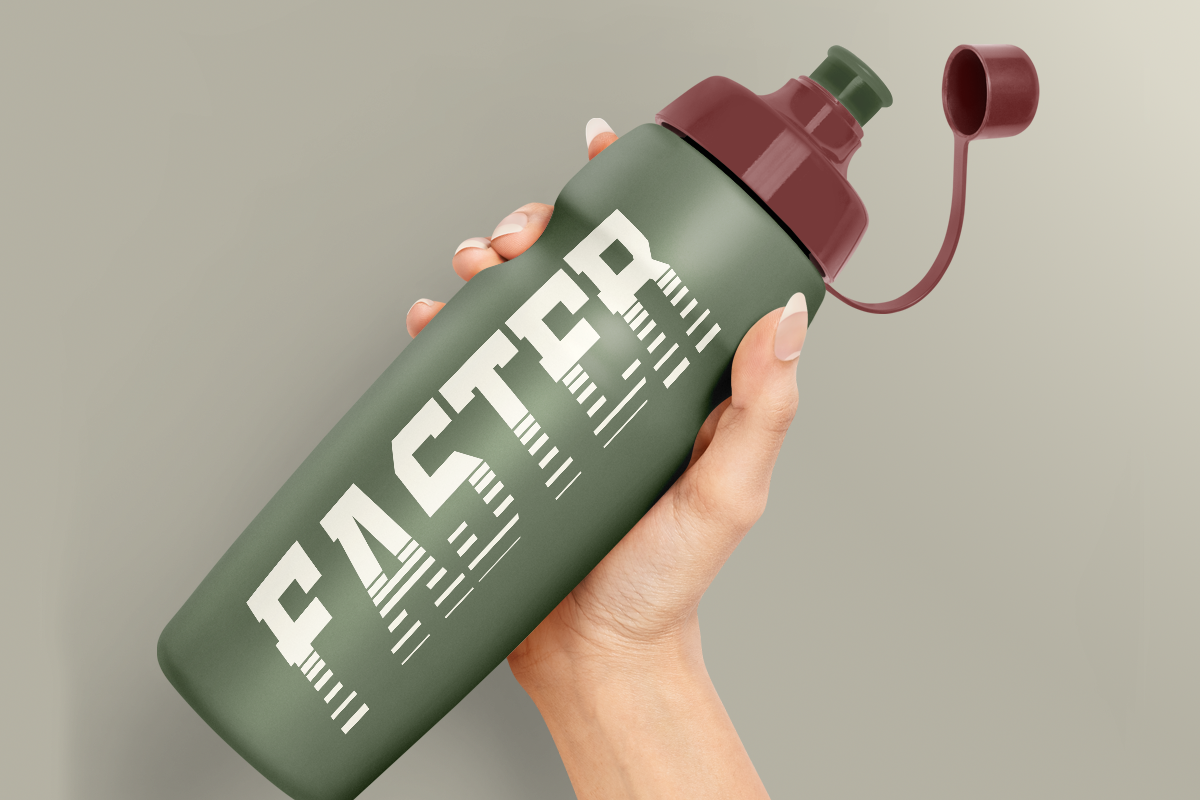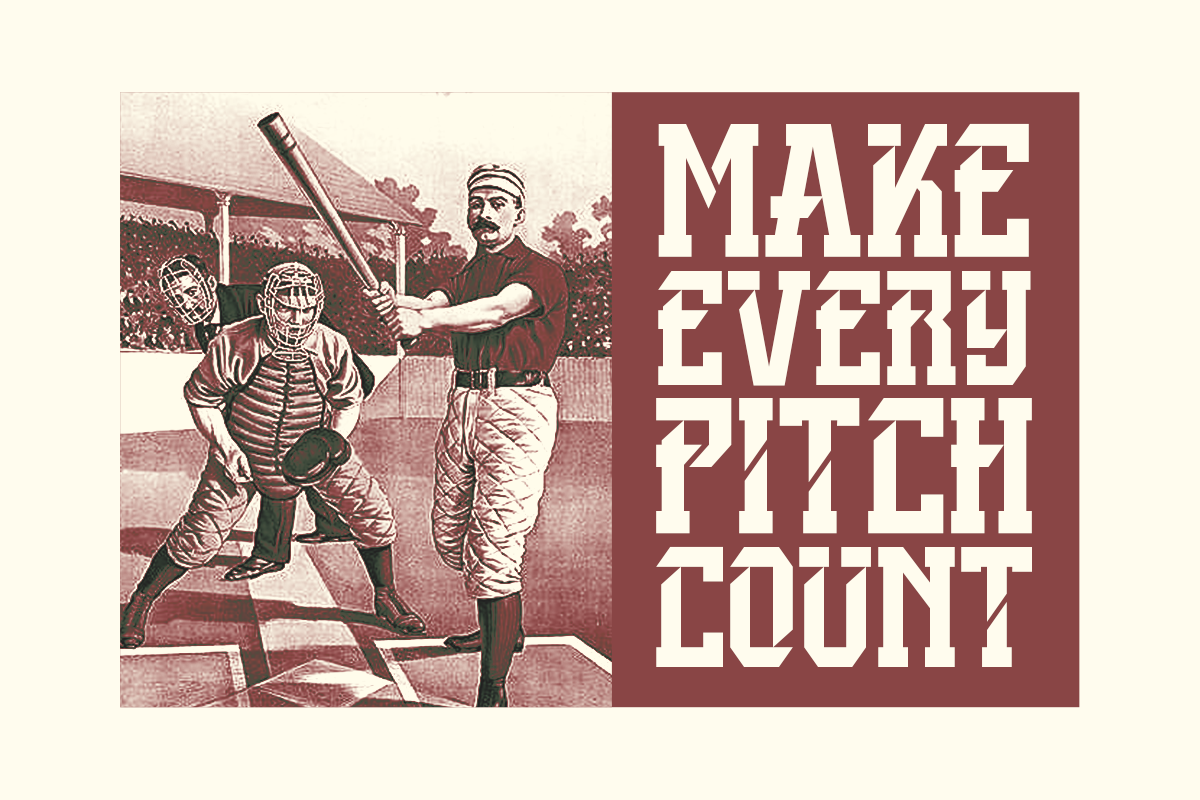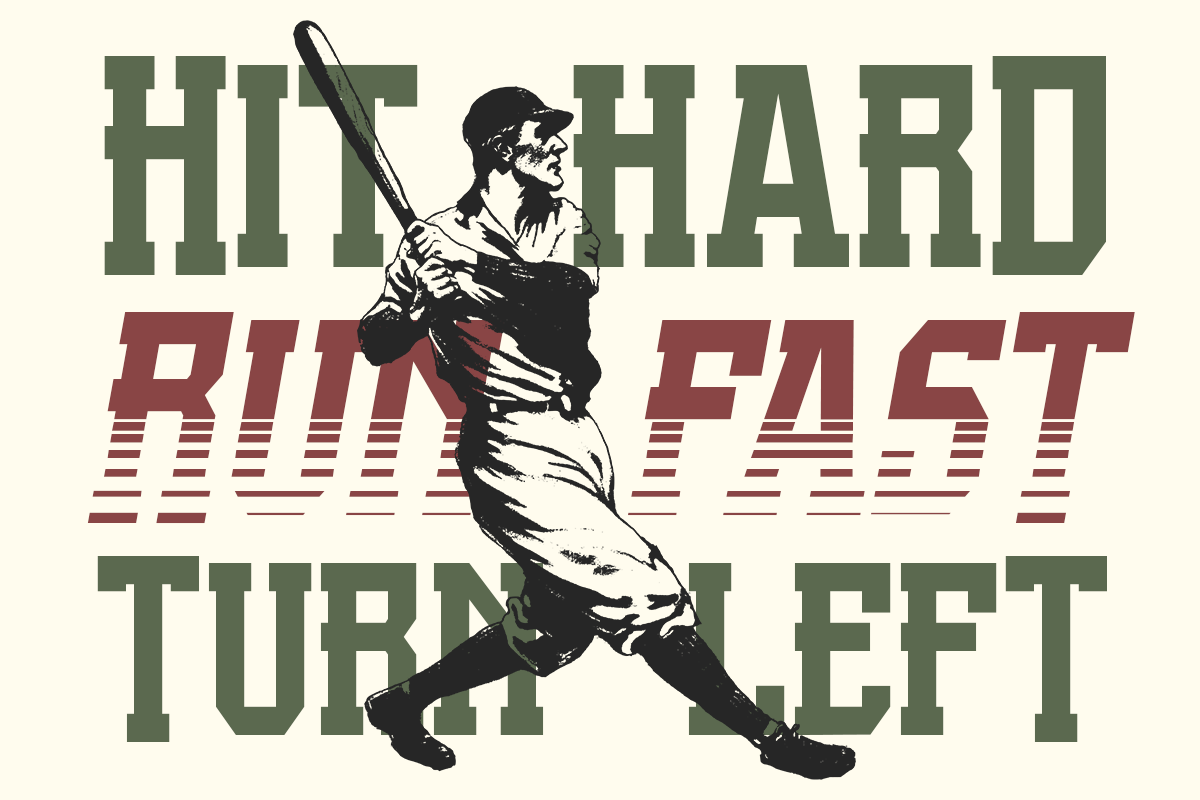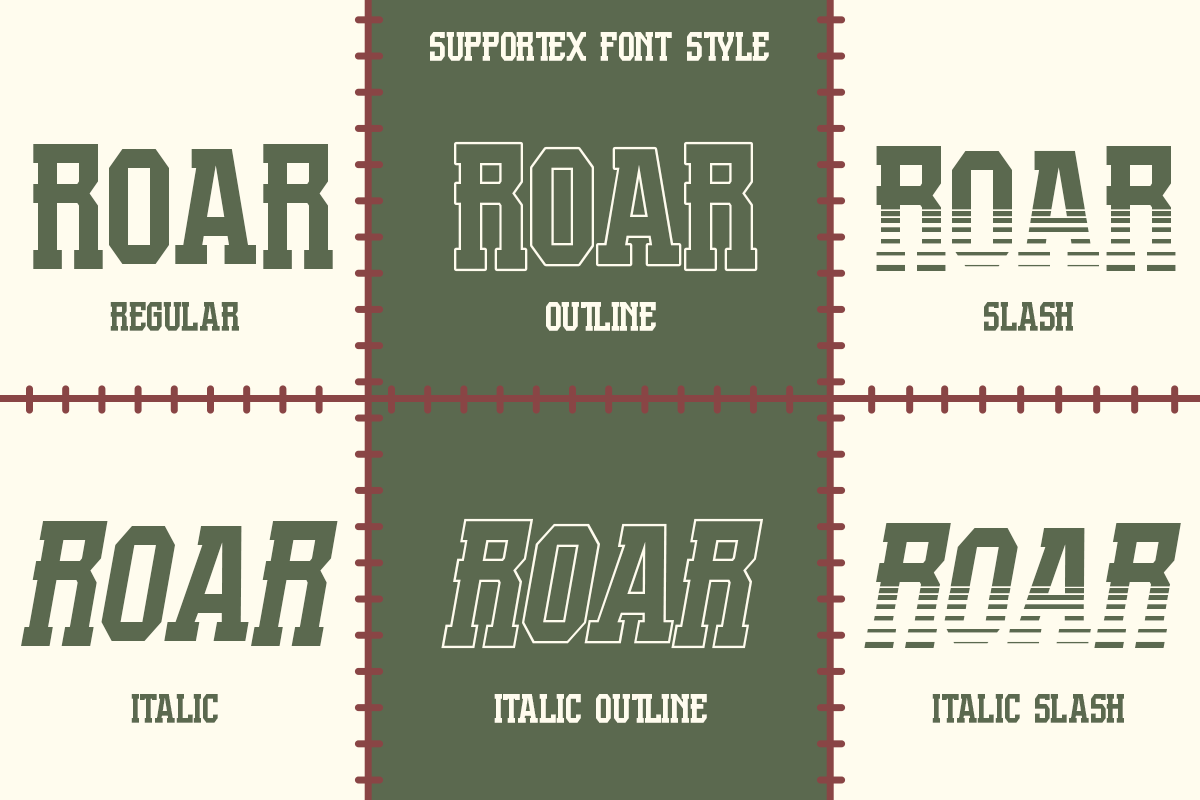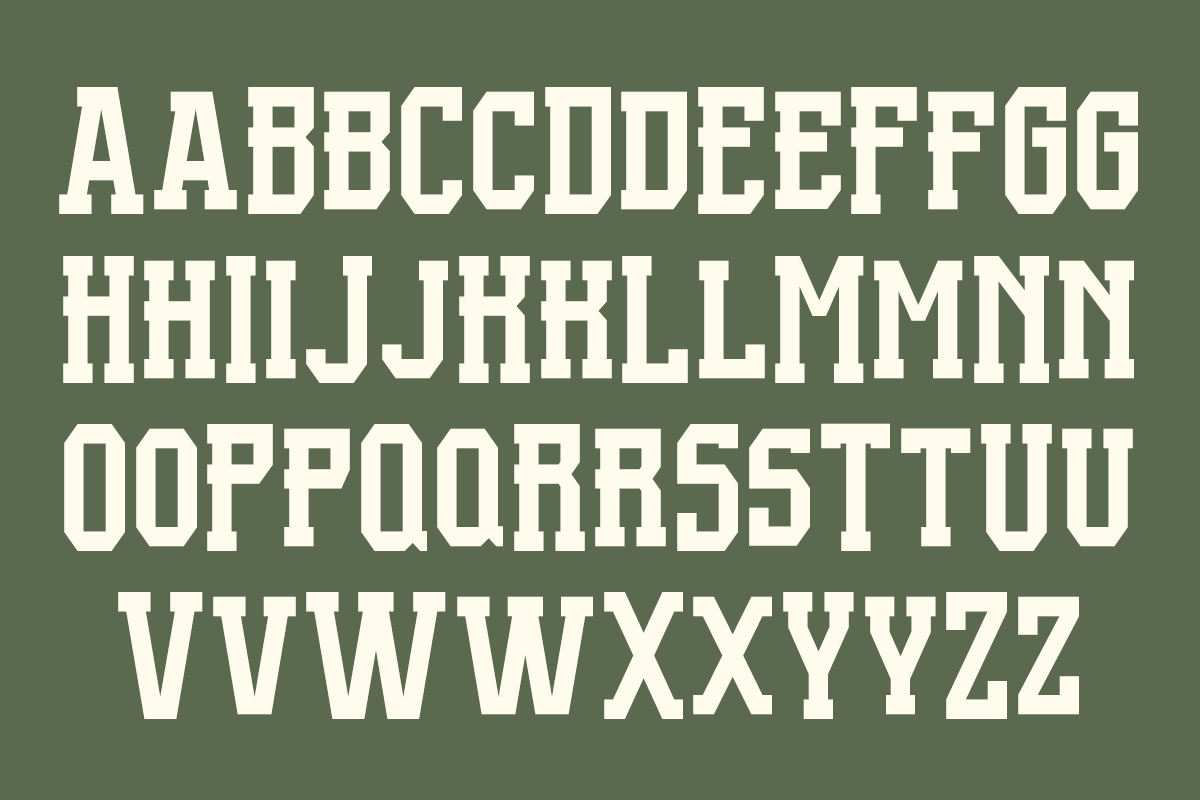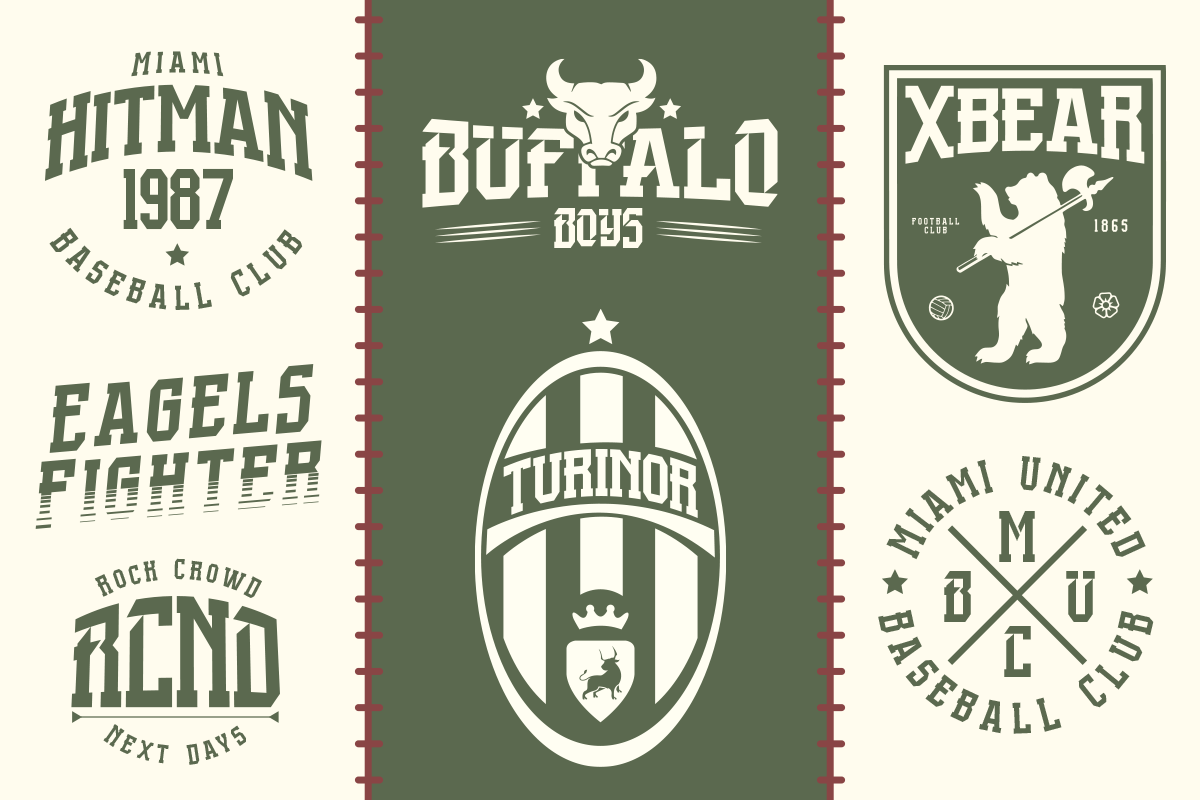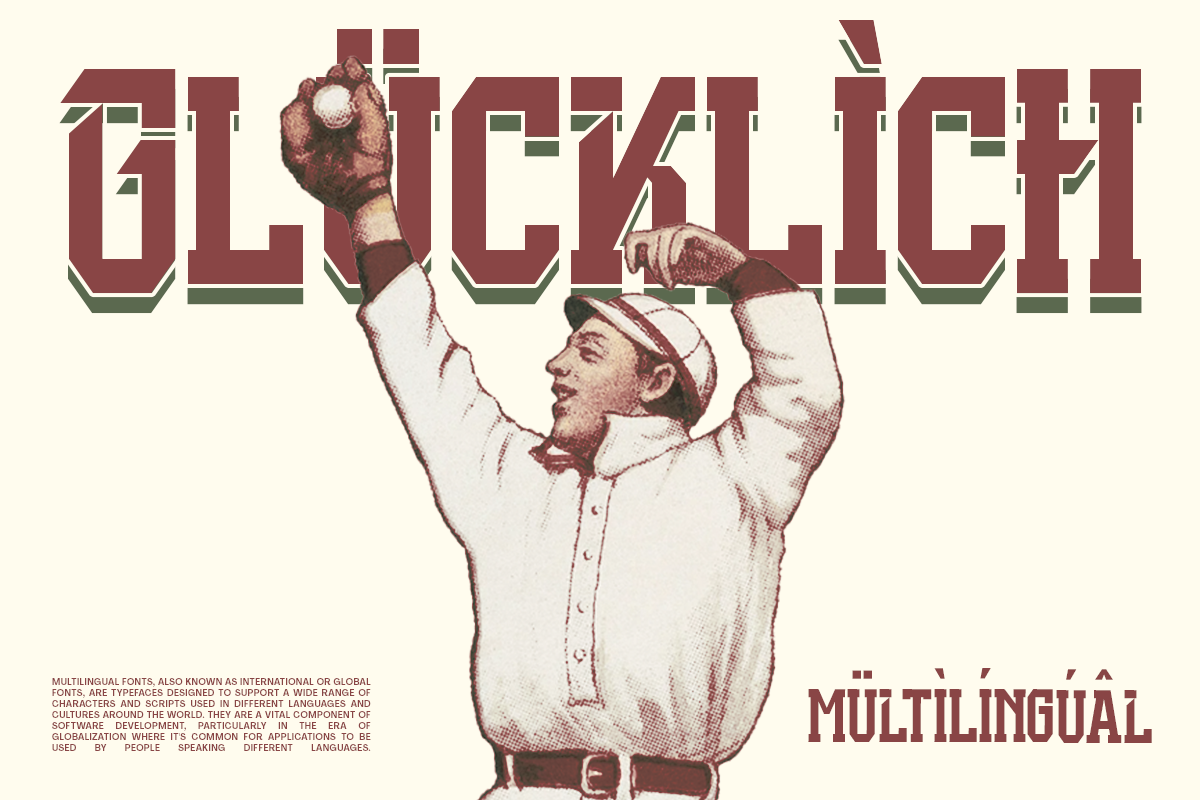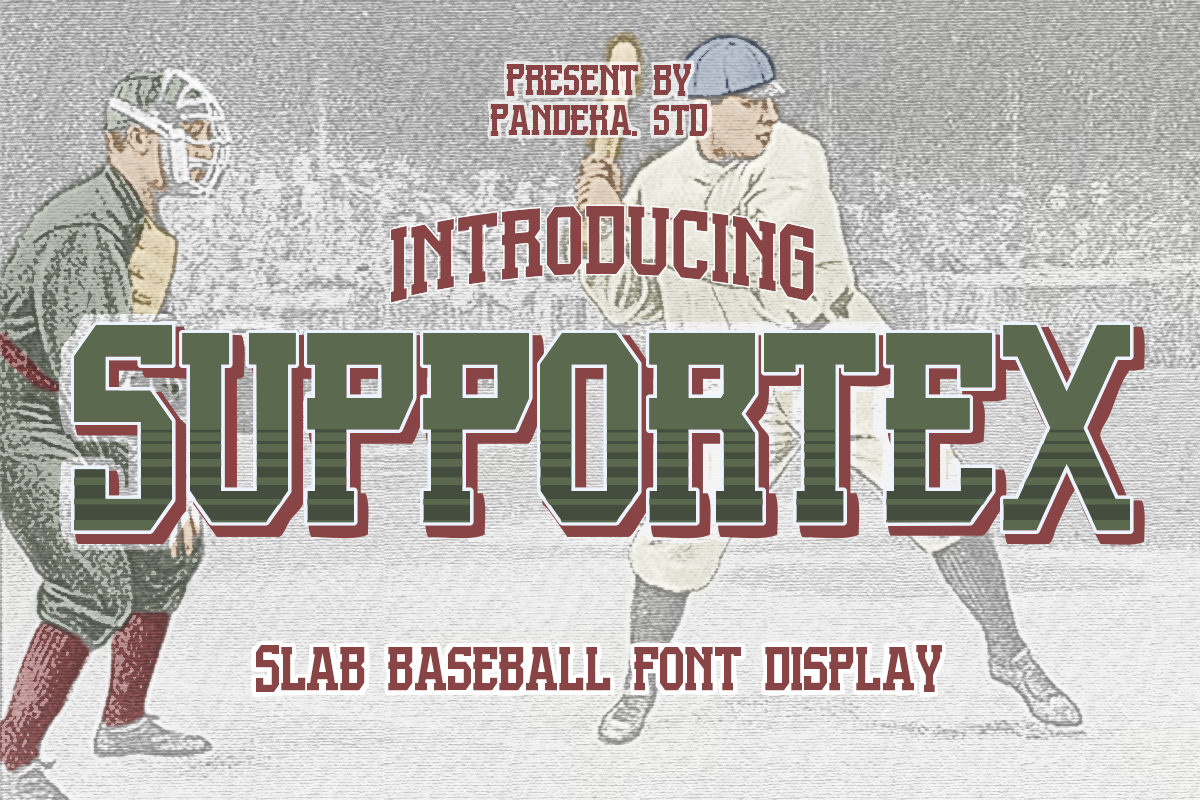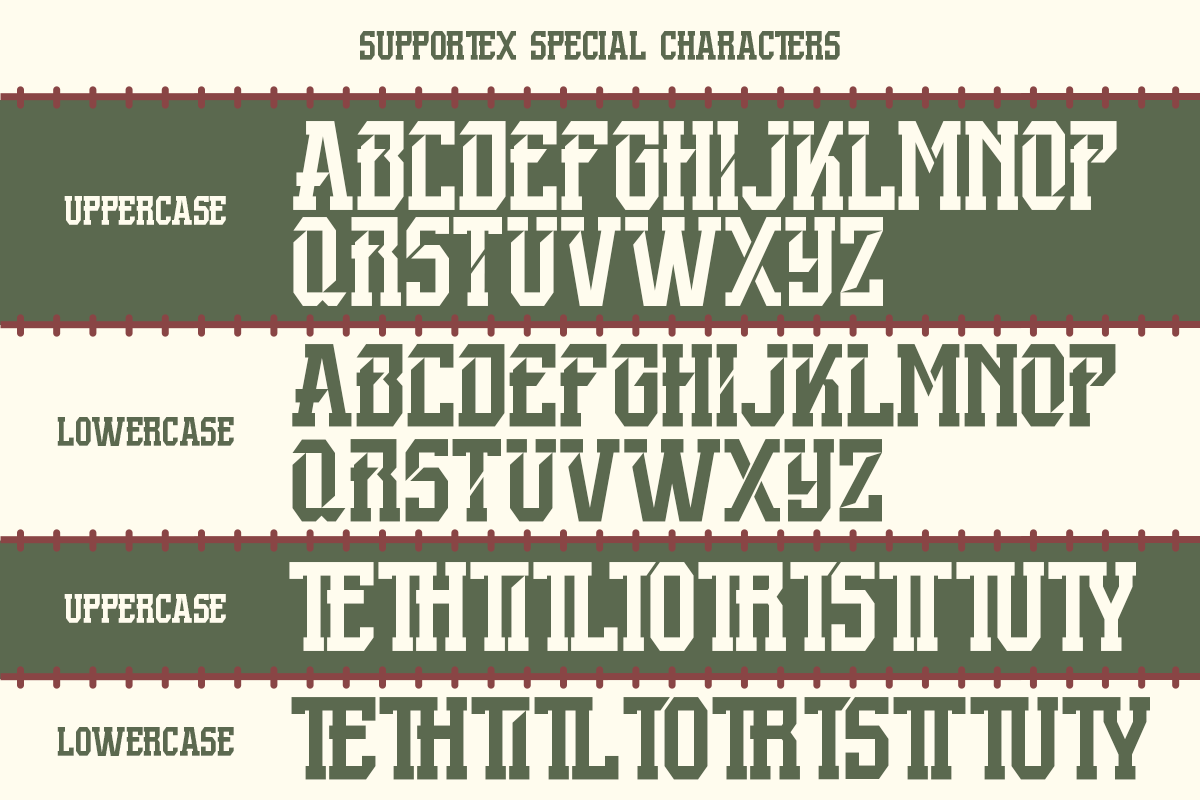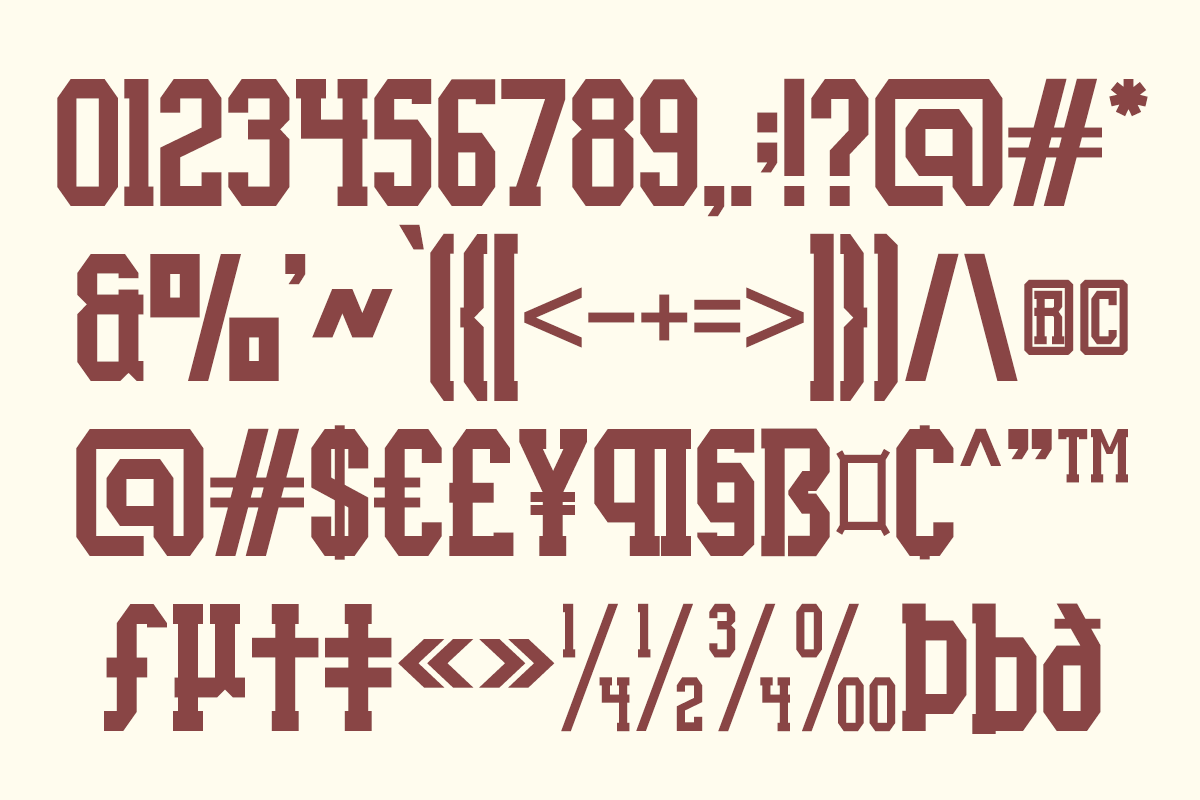
Supportex - Slab Baseball Font
Introducing Supportex, a Slab Baseball Font Display designed to make a statement. Supportex exudes strength, confidence, and power, making it the perfect choice for sports logos, branding, posters, apparel design, and more.
Supportex features six versatile styles: Regular, Outline, Italic, Slash, Italic Outline, and Italic Slash. Each style brings a unique flair to your projects, ensuring versatility and creativity in your designs. With its robust letterforms and energetic vibe, Supportex captures the essence of athleticism and competition.
OpenType features include a variety of stylistic sets and alternate characters, offering flexibility and customization to match your creative vision. Whether you're designing for a sports team, an event, or any dynamic project, Supportex adds a powerful and memorable touch.
- Six unique styles: Regular, Outline, Italic, Slash, Italic Outline, Italic Slash
- Complete Special Alternates & Ligatures
- Strong, confident letterforms